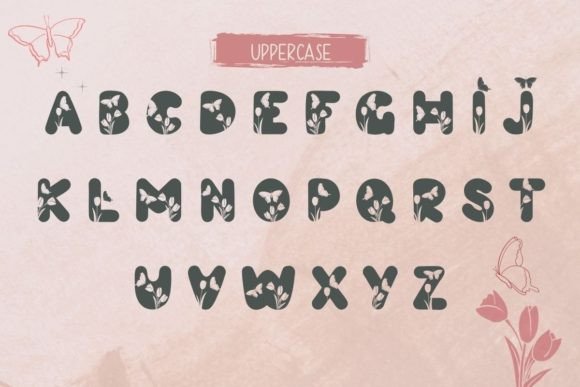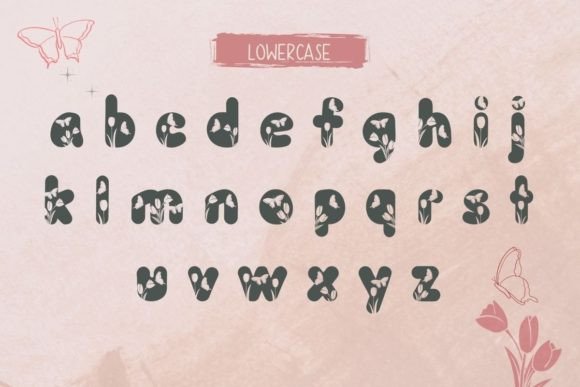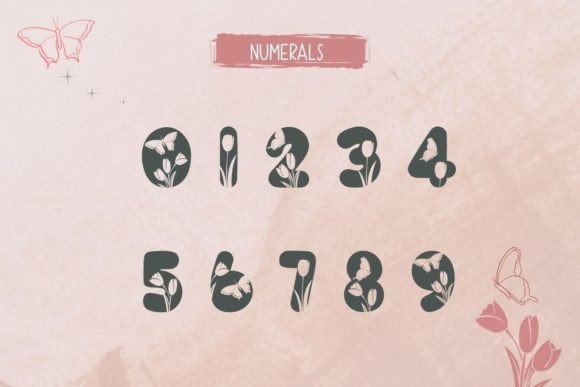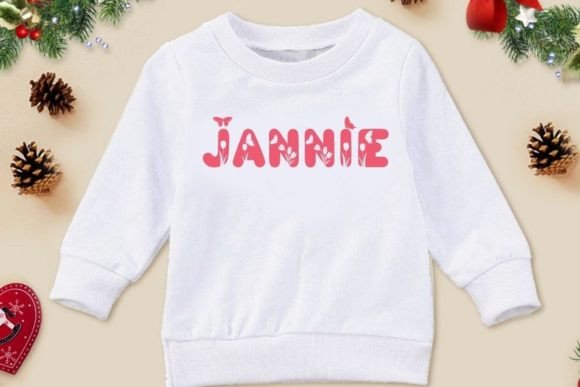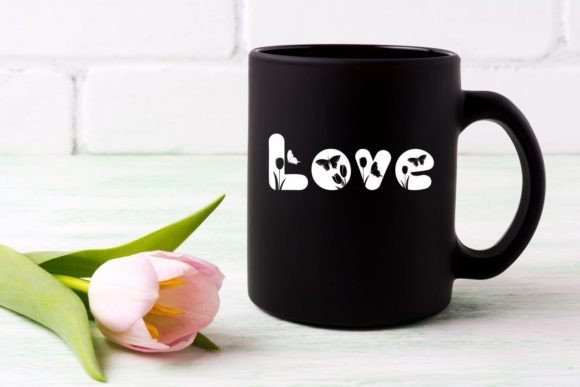
Adding a Touch of Whimsy: The Magic of Butterfly Font
Have you ever stumbled upon a font that instantly sparks your creativity? For designers, this moment can be a game-changer. Imagine you’re working on a project, and you come across a font that perfectly captures the essence of your vision. For me, that moment came when I discovered the Butterfly Font.
The Butterfly Font is a charming display font that transports your designs to a world of beauty and wonder. With its unique design featuring tulips and butterflies punched into the letters, this font is a perfect fit for creating romantic and whimsical projects. Whether it’s a Valentine’s Day card, a wedding invitation, or a social media post, the Butterfly Font adds a touch of magic to any design.
- Font Family: Butterfly is a sans-serif font family that includes various weights and styles, including Thin, Light, Regular, Medium, Bold, and Black.
- Character Set: Supports a wide range of languages, including Latin, Cyrillic, Greek, and many others, making it a versatile choice for global applications.
- Unique Characteristics: Butterfly font features a distinctive rounded shape, making it easy to read and highly legible, even at small font sizes.
Designer Review: Butterfly Font
Overall, I think Butterfly Font has some great qualities that make it a beautiful addition to any design project. ✨ The flowing curves and whimsical feel make it perfect for adding a touch of elegance and sophistication. It’s especially great for titles, headings, and other display text where you want to make a statement.
The font’s versatility and compatibility with various devices and software are also a major plus. It’s a great choice for designers who need a reliable and easy-to-use font for their projects.
- ✨ Elegant and whimsical feel
- ✨ Beautiful for titles, headings, and display text
- ✨ Versatile and compatible with various devices and software
- ✨ Great for adding a touch of sophistication and elegance
- ⚠️ Limited to display use (may not be suitable for large blocks of body text)
- ⚠️ May be difficult to read in smaller sizes or with low contrast
- ⚠️ Not suitable for use in situations where a clear, concise font is required
Overall, I think Butterfly Font is a great addition to any design project, but it’s essential to use it thoughtfully and in the right situations. With its elegant feel and versatility, it’s a great choice for designers who want to add a touch of sophistication and elegance to their work.
Tips for Getting the Most Out of the Butterfly Font
Use the Butterfly Font for headings, titles, and body text to add a touch of elegance to your design.
Experiment with different font sizes, colors, and styles to create a unique look.
Combine the Butterfly Font with other elegant fonts to create a beautiful typography combination.
The Butterfly Font is perfect for:
Branding and marketing materials
Editorial and creative writing projects
Any design project that requires a touch of elegance and sophistication